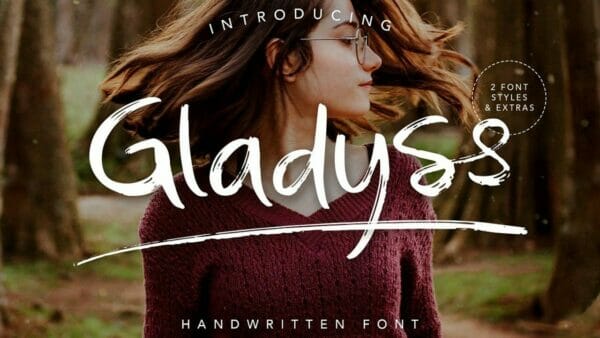
Gladyss Font
A handwritten font with a strong and fun feel united into one. Gladyss is perfect for branding projects, product packaging – or a stylish text overlay to any background image.
– Gladyss Regular: Font type with bold and clean character. It is perfect for the beauty and any clean layout.
– Gladyss Alt: Font type with quick dry strokes and a signature style. It is perfect for the adventure theme and any fun layout.
– Gladyss Extras: A set of 26 hand-drawn swashes, the perfect finishing touch to underline your Gladyss text.